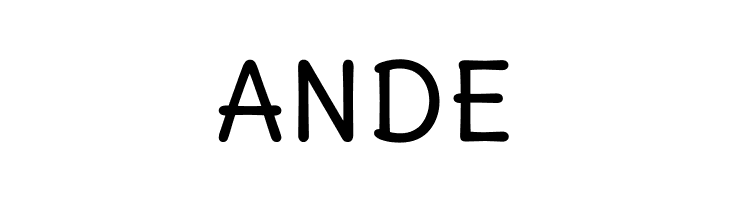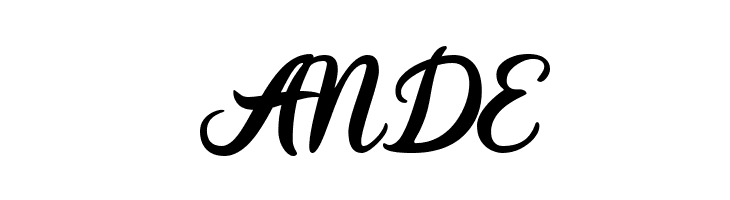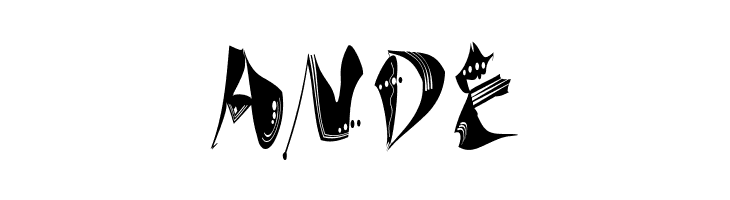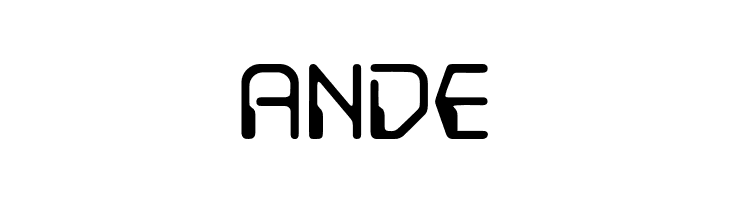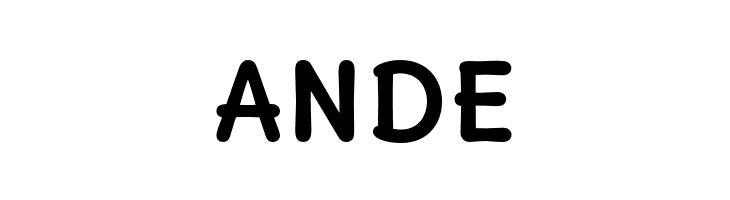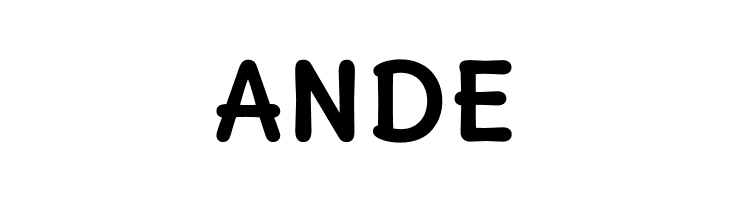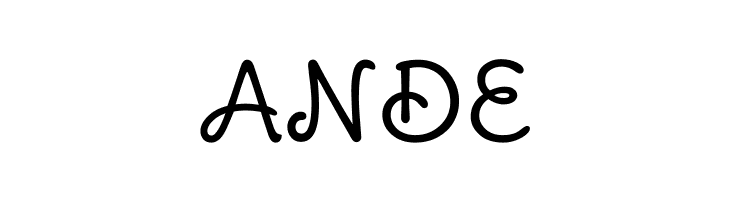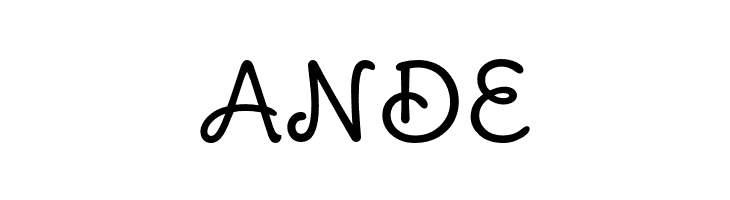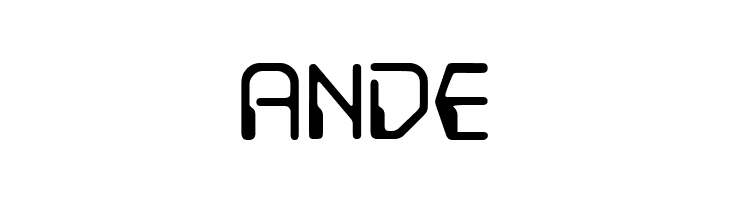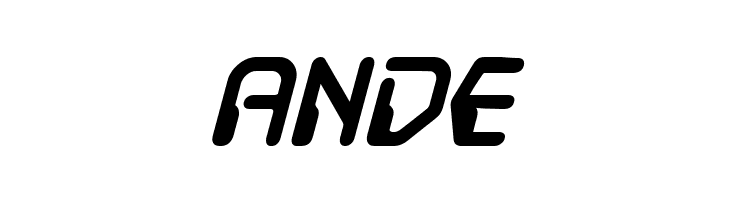
An artistic and decorative font with abstract, bold designs and unique patterns.
A bold, geometric font with sharp angles and circular cutouts, ideal for decorative use.
A bold, geometric font with fragmented and overlapping shapes, offering a modern and edgy look.
A playful, swash-style font with rounded, flowing letterforms.
A playful, unicase font with rounded edges and a friendly style.
A bold, rounded font with a playful unicase style.
A playful, swash-style font with rounded edges and decorative flair.
A playful, rounded unicase font with bold strokes and a friendly appearance.
A playful, unicase font with rounded, smooth characters and a modern, friendly style.
A diverse set of ornamental and symbolic pictograms in bold black silhouettes.
A bold, distressed font with a rugged, vintage aesthetic.
A bold, futuristic font with geometric and angular design elements.
A bold, angular, and futuristic font with a dynamic, slanted style.
A futuristic, geometric font with bold, angular shapes and cut-out sections.
A bold, futuristic font with geometric, angular characters and a dynamic slant.
A classic Gothic font with intricate details and bold, ornate characters.
A traditional Blackletter font with ornate, angular designs and historical elegance.
Ornate, pictorial font with devil and mythological illustrations.
A bold, geometric display font with octagonal emblem motifs and strong contrast.
An ornate, vintage-style font with intricate flourishes and bold, decorative elements.
A dynamic, cursive script font with elegant italic styling.